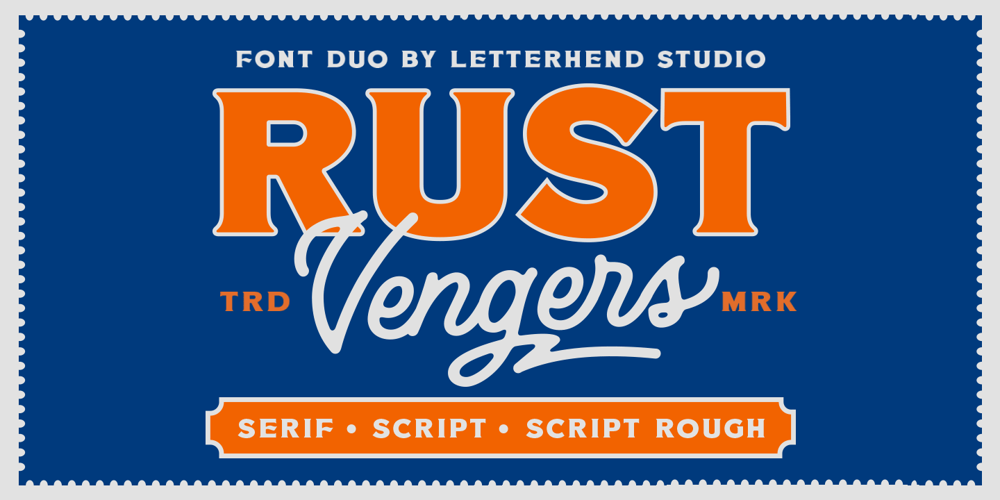
Rust Vengers Font Family was designed by Hendry Juanda and published by Letterhend. Rust Vengers contains 3 styles and family package options. Rust Vengers is an display font duo consist of a monoline script paired with a display serif with a touch of sporty looks. This type of font perfectly made to be applied especially in logo, headline, signage and the other various formal forms such as invitations, labels, logos, magazines, books, greeting / wedding cards, packaging, fashion, make up, stationery, novels, labels or any type of advertising purpose.Features : Uppercase & lowercase Numbers and punctuation Alternates & Ligatures Multilingual Support PUA encoded